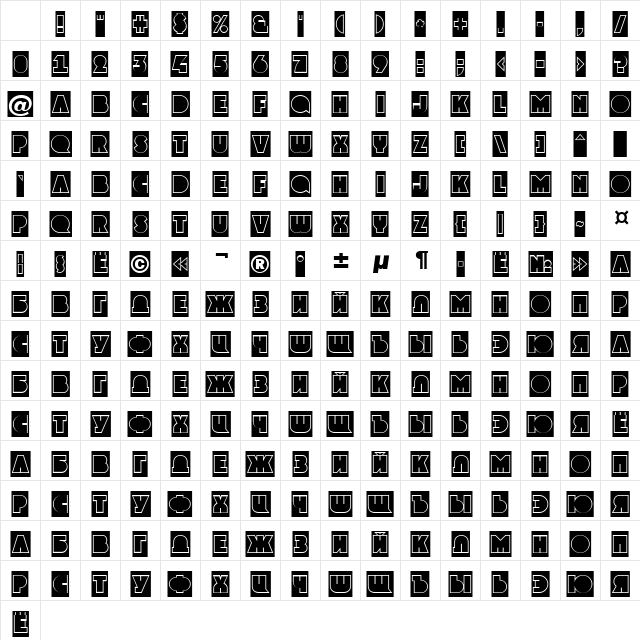
Complete a_GrotoCmGr Normal glyph index. Displaying only characters natively supported by a_GrotoCmGr Normal font.
a_GrotoCmGr is a composed and adaptable typeface that performs quietly and consistently across a wide range of design contexts.